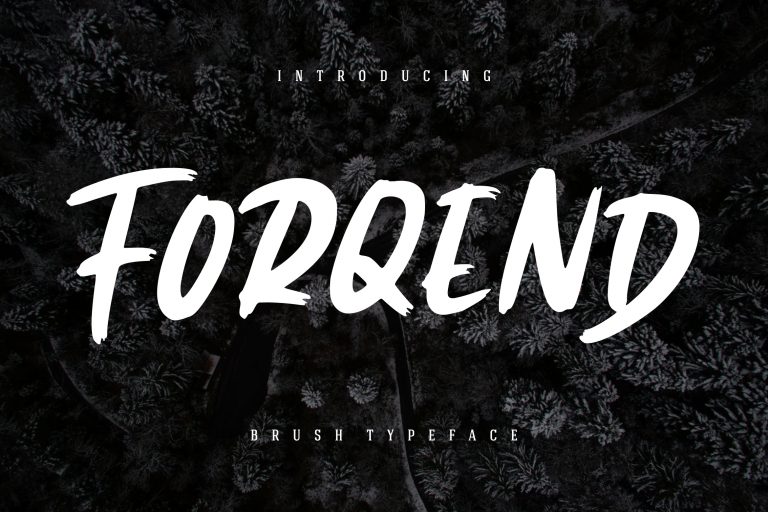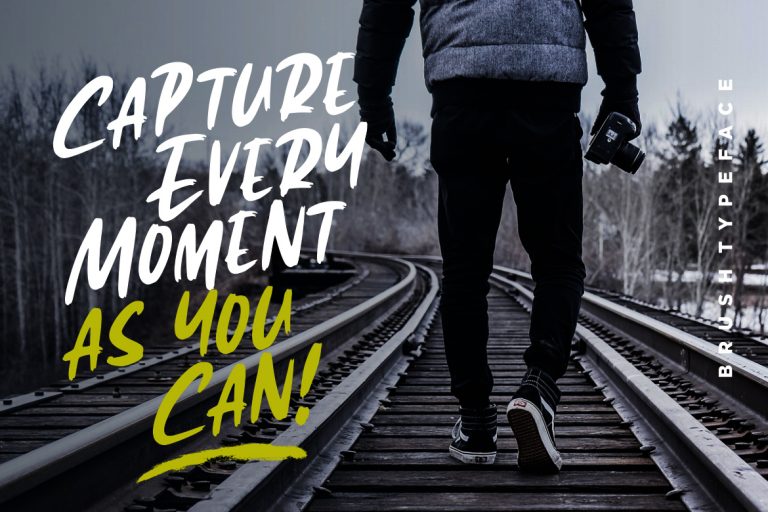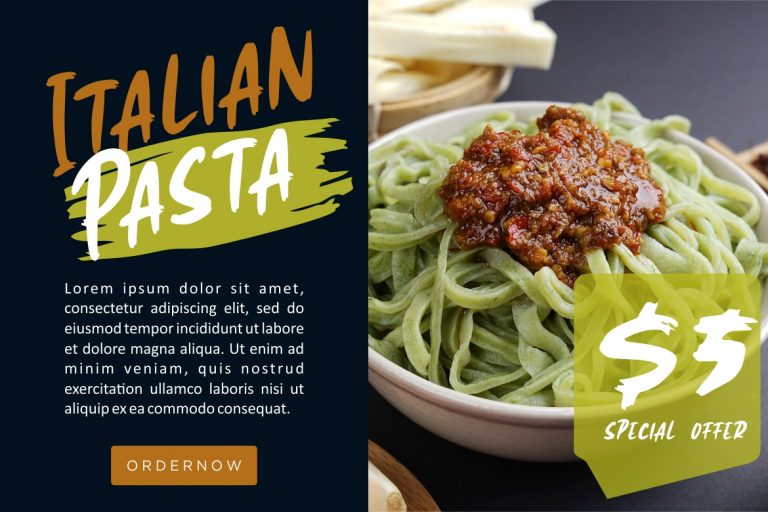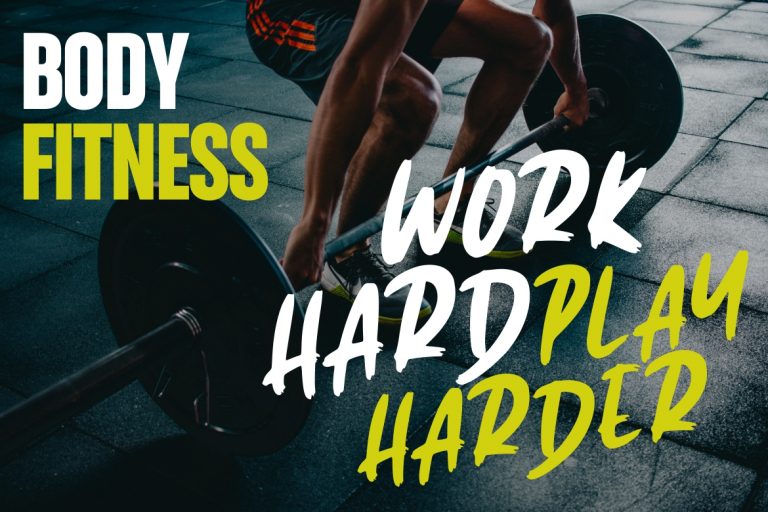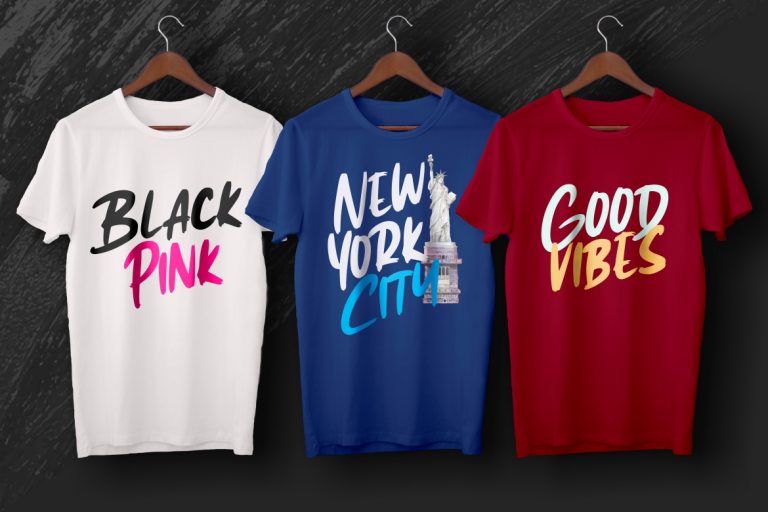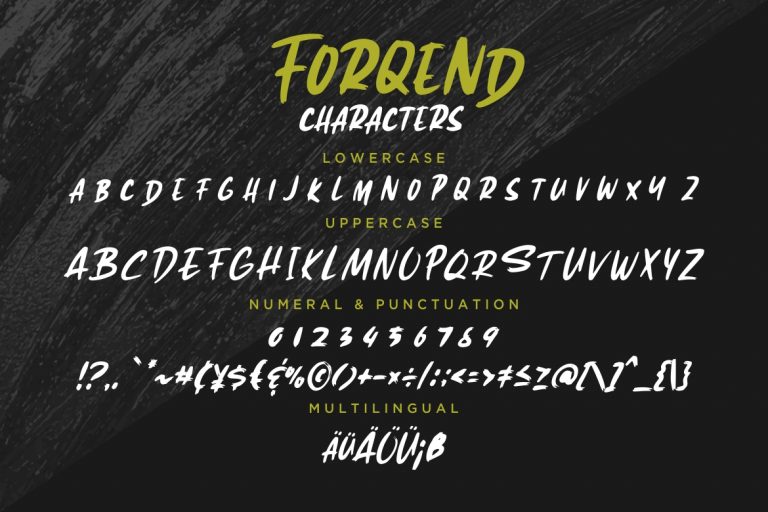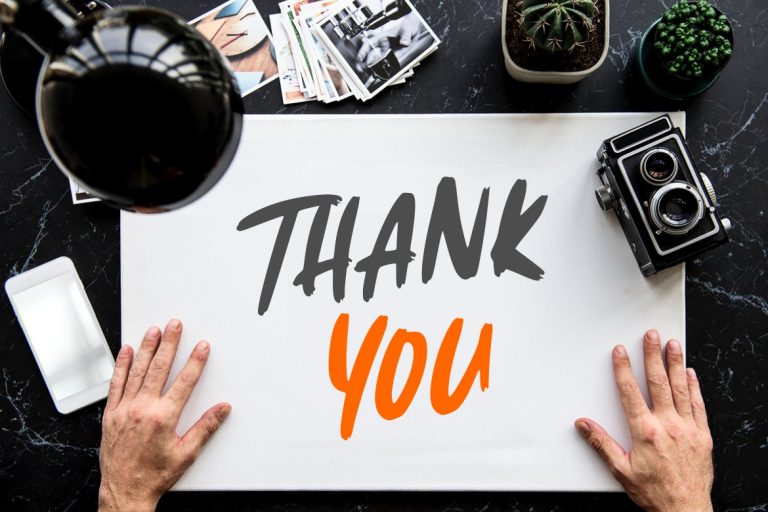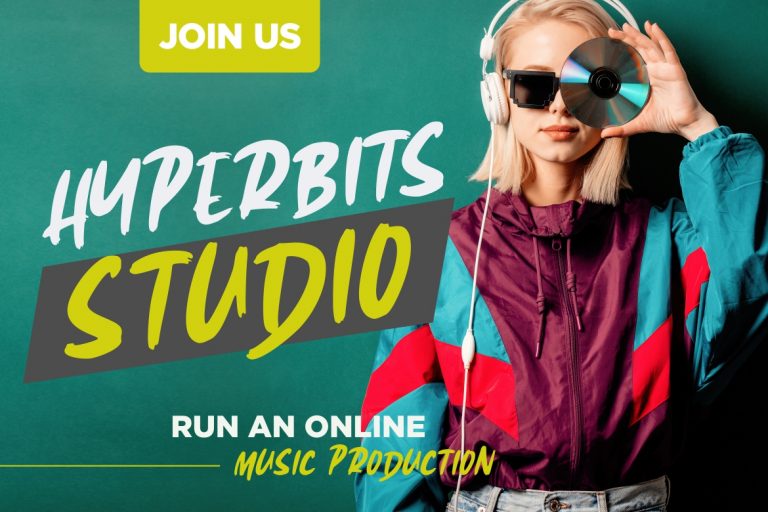
Forqend is sans serif hand brush font with bold and strong movement.
Forqend is perfect for branding projects, logo, wedding designs, social media posts, advertisements, product packaging, product designs, label, photography, watermark, invitation, stationery and any projects that need handwriting taste.
• Fonts include multilingual support for; ä ö ü Ä Ö Ü ß ¿ ¡
Forqend Brush Typeface